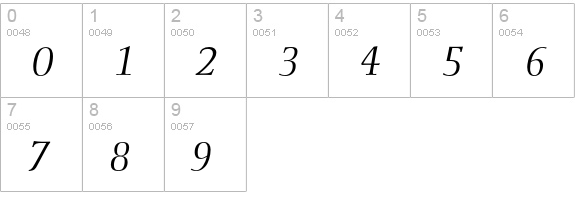
Ellington Light Italic Font Details
Ellington Light Italic is a refined, elegant, italic variant in the Ellington typeface family \xE2\x80\x94 well suited to elegant body text, refined sub-headings, and luxury branding.
The Ellington Light Italic font is a sleek and elegant typeface that exudes sophistication and charm. Its delicate and refined letterforms make it perfect for adding a touch of class to any design project. The gentle slant of the italic style adds a sense of movement and fluidity, making it a versatile choice for both headlines and body text. What sets Ellington Light Italic apart is not only its timeless appeal but also its accessibility. This exquisite font is available for free download at FontsMarket.com, making it easy for designers and creatives to incorporate its beauty into their work without breaking the bank. Whether you're working on a branding project, a wedding invitation, or a marketing campaign, Ellington Light Italic is sure to elevate your design with its grace and sophistication. Download it today and let your creativity shine with this stunning typeface.